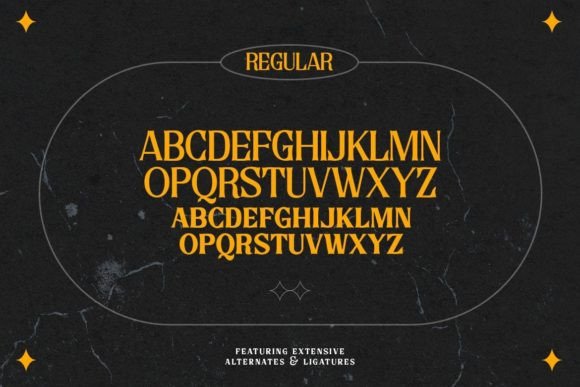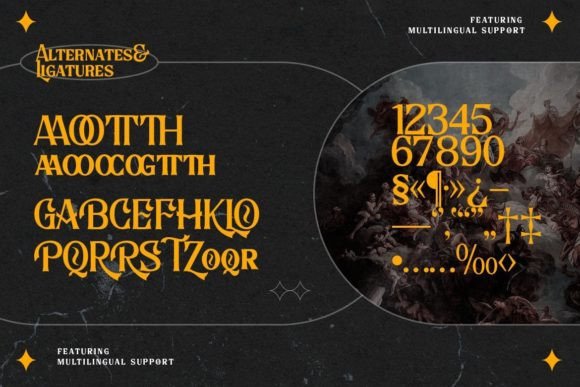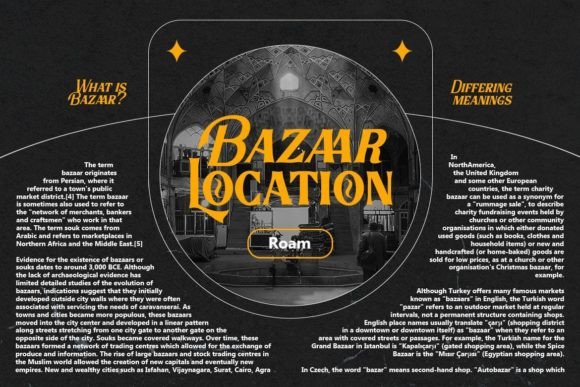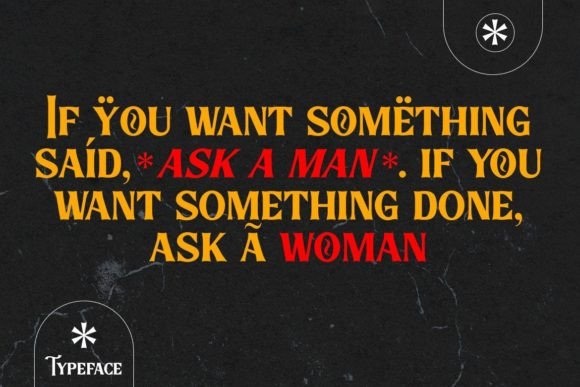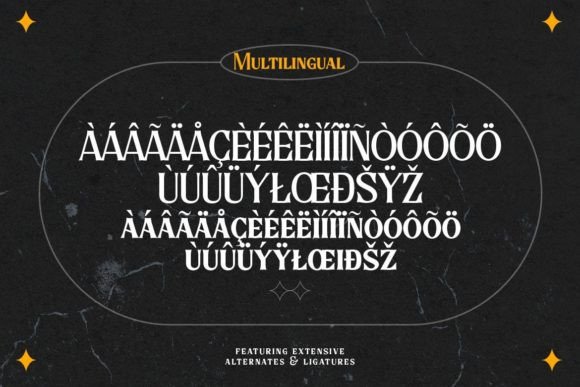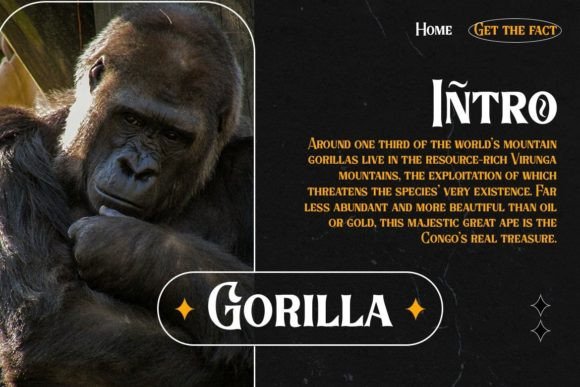
The Elegance of Arshaka Font: A Designer’s Delight
I still remember the moment I stumbled upon the Arshaka font while working on a project for a luxury brand. I had been searching for the perfect serif font to give their branding a touch of sophistication, but nothing seemed quite right. That was until I saw Arshaka – its elegant lines and refined style immediately caught my eye. I knew right then and there that it was the one.
An Honest Review of Arshaka Font
What I Love About Arshaka ✨
• ✅ Exquisite and refined style that adds a touch of luxury to any design
• ✅ PUA encoded for easy access to glyphs and ligatures
• ✅ Highly versatile and fitting for a wide range of designs, from wedding invitations to luxury branding
• ✅ Elegant serif details that give it a timeless look
• ⚠️ Some users might find the font a bit too ornate for certain projects, such as casual or playful designs
The Backstory of Arshaka Font
The Arshaka font was crafted with the vision of creating a typeface that embodies elegance and sophistication. Inspired by traditional serif fonts, yet designed with a modern twist, Arshaka aims to bring a touch of luxury to any design project. While the specific designer behind Arshaka remains a mystery, their passion for typography and design excellence shines through in every detail of this exquisite font.
Q: What makes Arshaka font stand out?
A: Arshaka stands out due to its exquisite and refined style, PUA encoding for easy access to glyphs and ligatures, and its highly versatile nature suitable for a wide range of designs.
Q: Is Arshaka suitable for body text?
A: While Arshaka is elegant and highly readable, its serif details might make it more suited for headings and titles. However, for certain projects like luxury editorials or high-end publications, it could work beautifully for body text as well.
Q: How do I access the glyphs and ligatures in Arshaka?
A: Thanks to its PUA encoding, accessing glyphs and ligatures in Arshaka is straightforward. You can use the font in compatible software like Adobe Photoshop/Illustrator or Canva, and easily insert these special characters to enhance your designs.